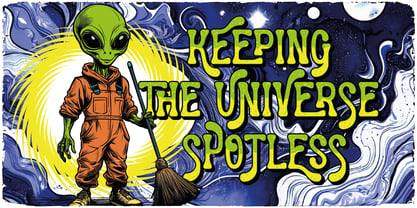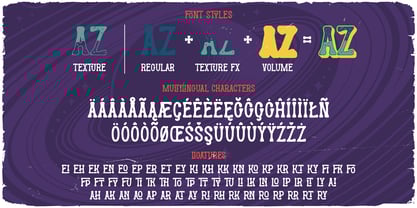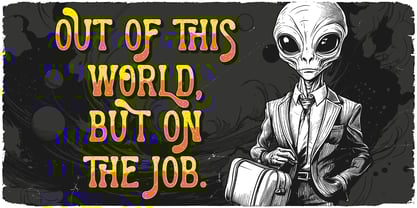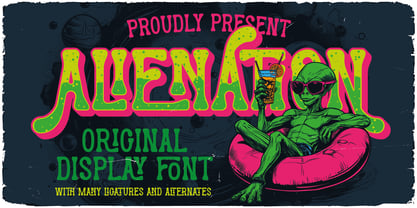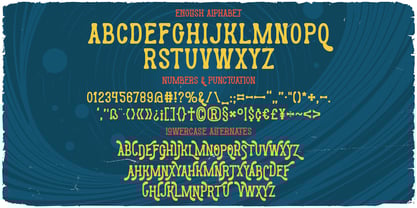
Alienation
by Vozzy
The Alienation Font Family was designed by Oleg Voznyy and published by Vozzy. Alienation contains 4 styles and family package options.
Introducing the original display font "Alienation" – a handcrafted typeface full of personality and charm. It includes extended characters, punctuation, full multilingual support, as well as a rich selection of alternates and ligatures to give your text extra style and flexibility. Whether you're working on posters, flyers, branding, or T-shirt designs, this font will make your message stand out. Every letter was carefully drawn by hand to achieve a unique and expressive look. "Alienation" is perfect for anyone who wants their design to feel striking, custom, and creative.